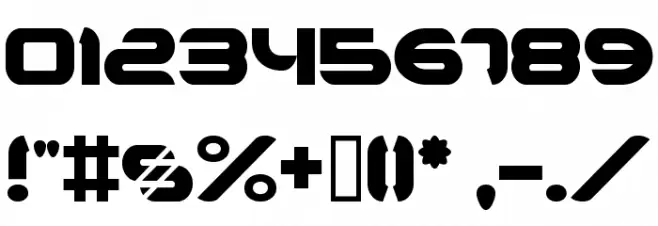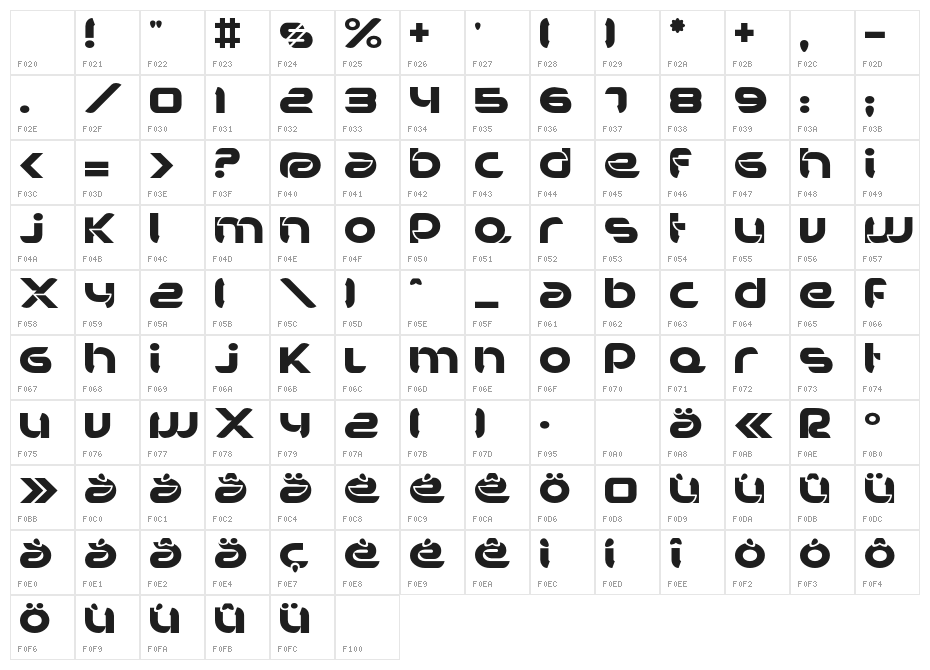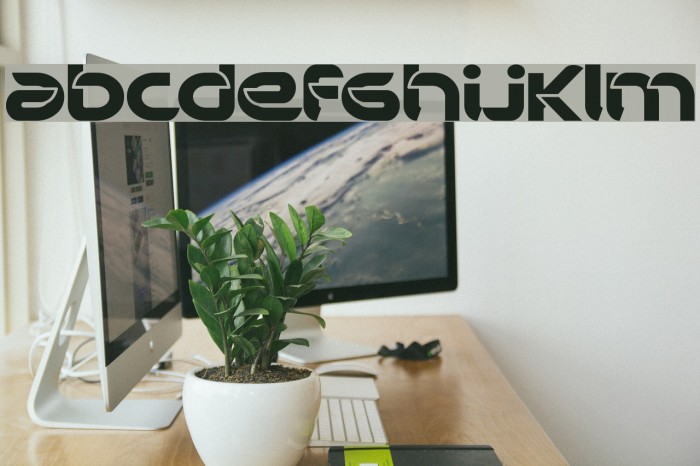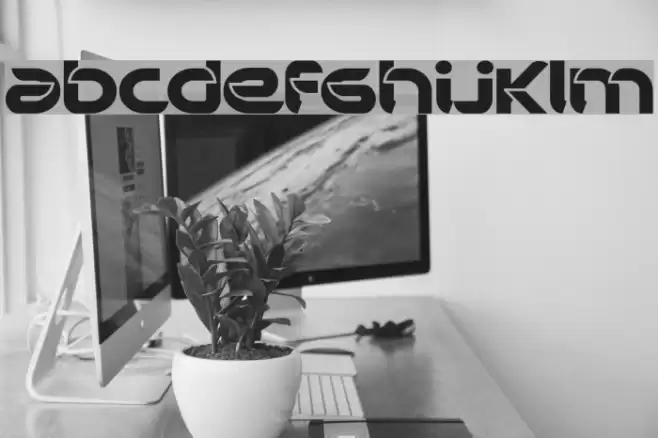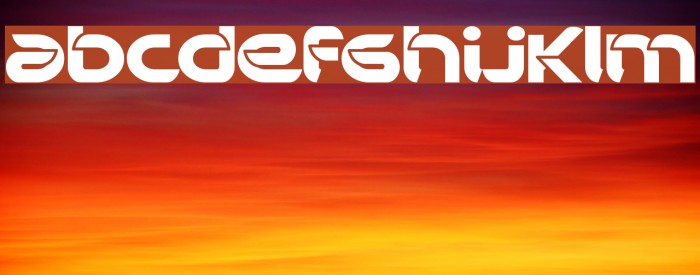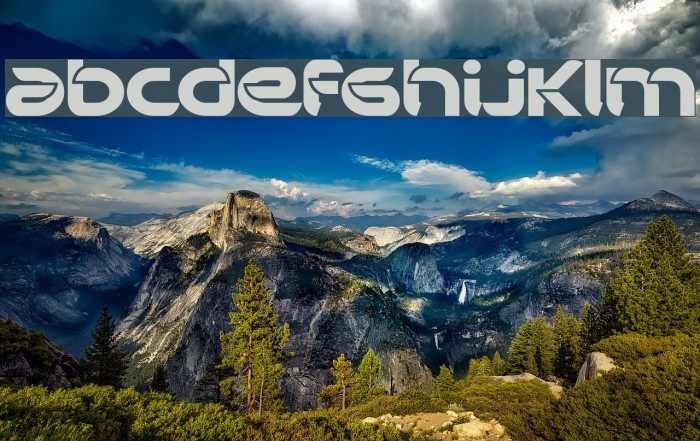
BDBankwell Font
BDBankwell Description
This font features a bold, futuristic design with geometric shapes and a strong presence. The characters are constructed with a unique blend of curves and sharp angles, creating a dynamic and modern appearance. The uppercase and lowercase letters maintain a consistent style, with a slightly condensed form that enhances readability while preserving its distinctive aesthetic. The numerals and special characters follow the same design principles, ensuring a cohesive look across all glyphs. This font's boldness and unique style make it ideal for projects that require a strong visual impact.
| Proposed Projects | Ideal for technology branding, sci-fi posters, video game titles, and modern advertising. |